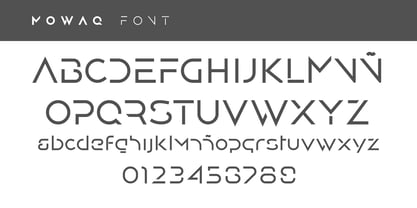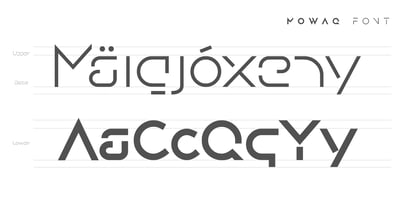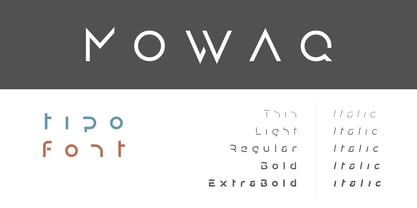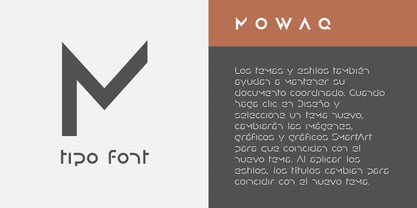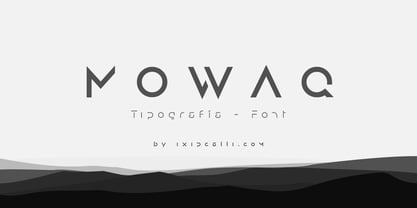
Mowaq
by Ixipcalli
The Mowaq Font Family was designed by Francisco Arellano and published by Ixipcalli. Mowaq contains 10 styles and family package options. More about this family
Mowaq is a modern, geometric sans serif typeface created to make headlines and subheadings in two books stand out with clarity, precision, and a strong visual presence. Its balanced proportions, defined structure, and minimalist aesthetic give it a distinctive character that works perfectly in branding projects, logos, headlines, packaging, editorial design, and digital interfaces. Each character has been carefully designed to offer excellent legibility without losing its contemporary, sophisticated, and versatile personality—whether for premium brand identities, technology projects, fashion campaigns, or creative advertising.
Mowaq strikes the ideal balance between functionality and style, making it a typographic tool capable of elevating the quality and impact of any professional design. The lowercase characters were subsequently adapted to the Mowaq family.
On June 30, 2026, the typeface was updated by revising the weights of its styles, adjusting kerning and margins, and adding the ExtraBold style.
Designers: Francisco Arellano
Foundry: Ixipcalli